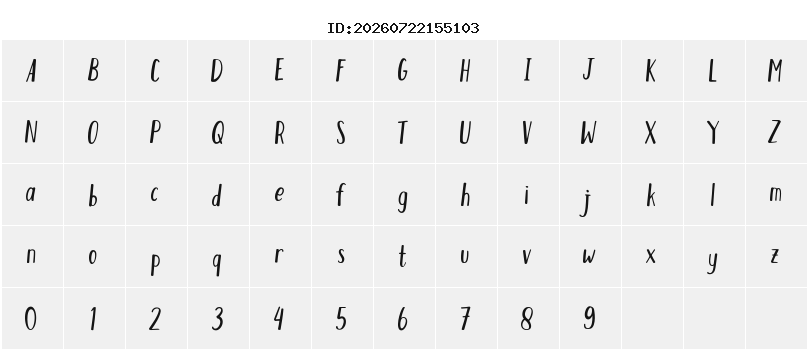
HUMBLE Preview
• Font Name: HUMBLE
• Full Font Name: HUMBLE
• PostScript Name: HUMBLE
• Designer: GOODWARE STUDIO
• Manufacturer: TASTYPE FOUNDRY
About HUMBLE.ttf
HUMBLE.ttf is a modern, elegant sans-serif font designed for ultimate readability and visual harmony. Perfect for branding, headlines, web design, and print materials.